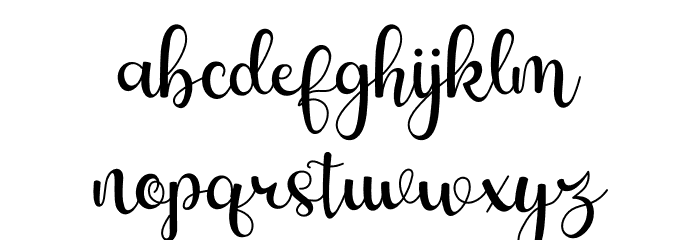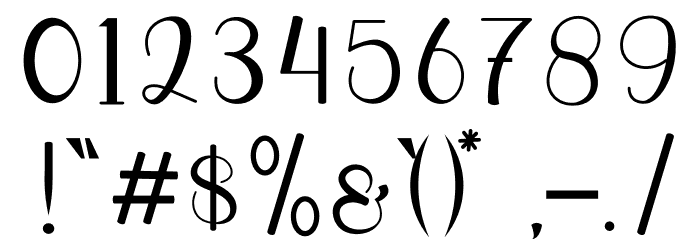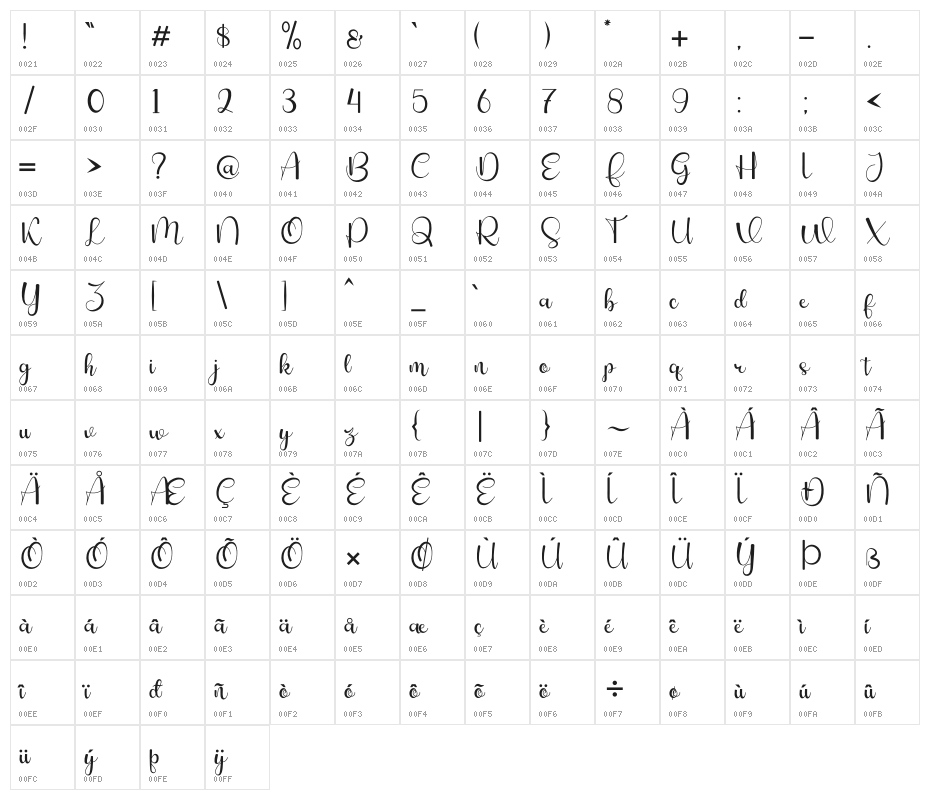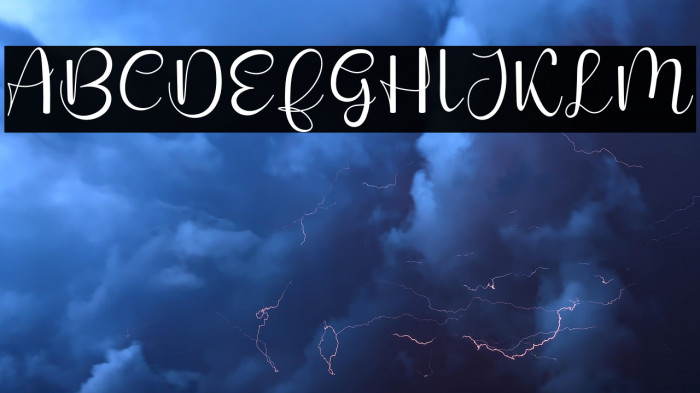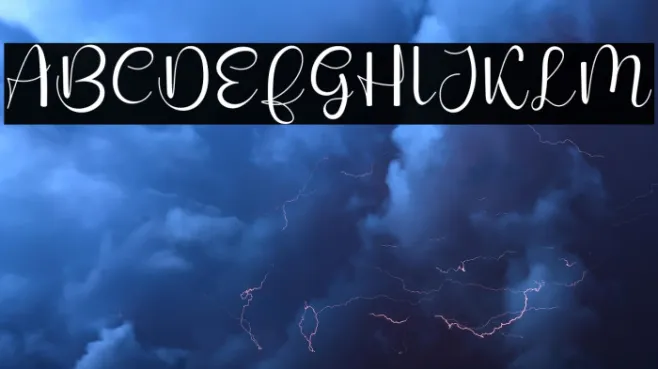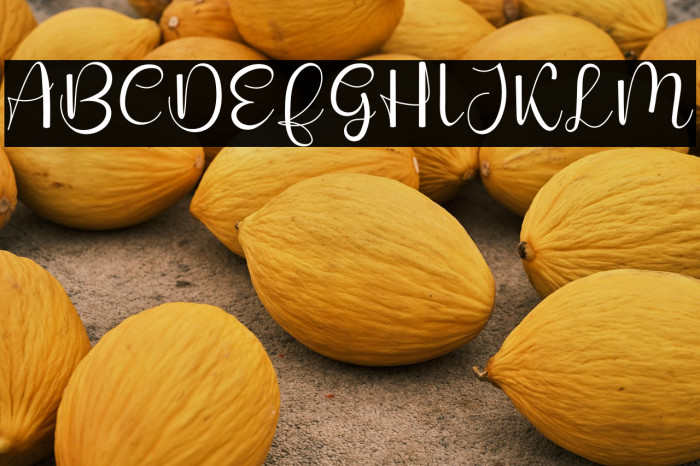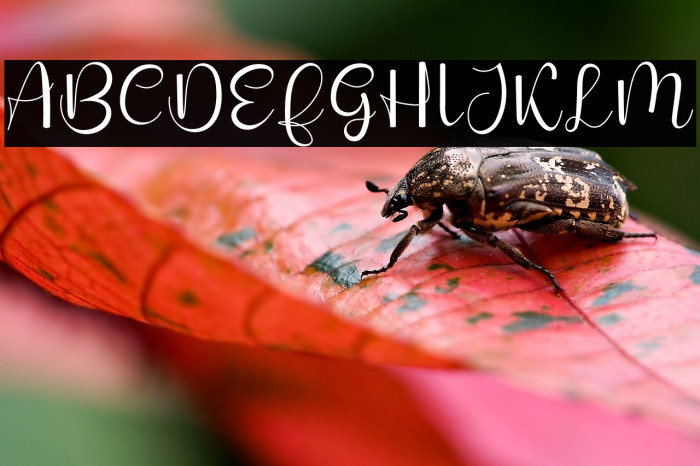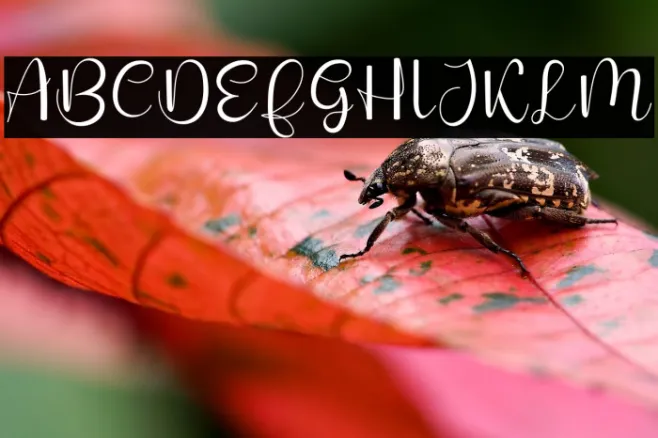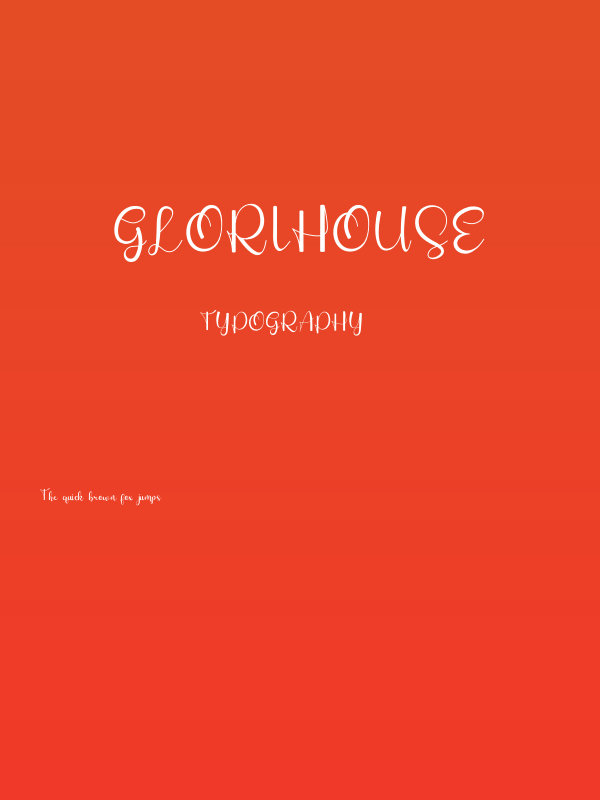
Glorihouse Font
This font features an elegant and flowing script style, characterized by its smooth, cursive letters that exude a sense of sophistication and grace. The uppercase letters are tall and slender, with intricate loops and swirls that add a decorative touch. The lowercase letters maintain a consistent flow, with rounded forms and gentle curves that enhance readability. The numerals are distinct and stylish, complementing the overall aesthetic with their balanced proportions. Special characters are thoughtfully designed, integrating seamlessly with the rest of the font. This font is perfect for projects that require a touch of elegance and refinement.
An elegant, flowing script font with decorative loops and swirls.
- Font: Glorihouse
- Proposed Projects: Ideal for wedding invitations, branding, greeting cards, and elegant packaging.
- Category: Script
- Overall Style: Elegant
- Use Case: Logos, Invitations, Decorative text